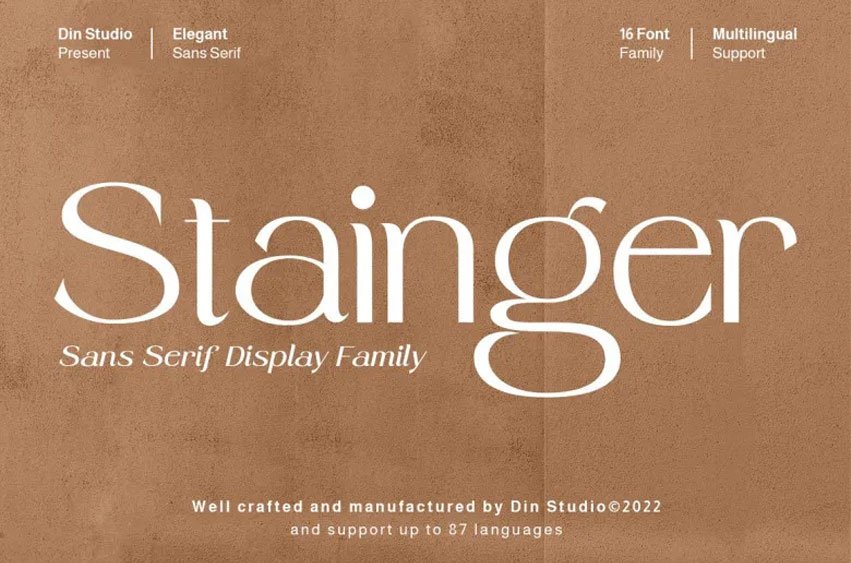
Stainger Font
Stainger Font Created to meet the needs of users everywhere, Stainger provides innovative ways of communicating and improving designs.
A font family with minimalist, modern characteristics. Stainger features 16 weights spanning light heavy italic styles. Easy and straightforward reading that works great for body text as well as header text.